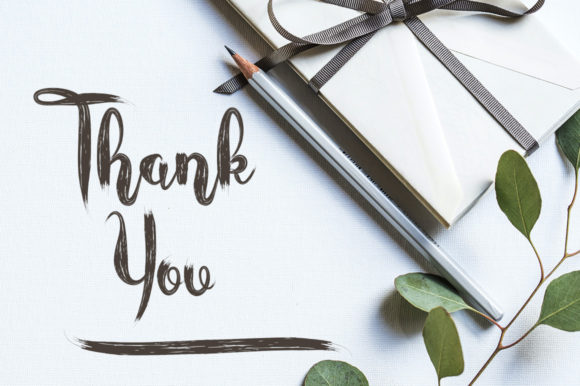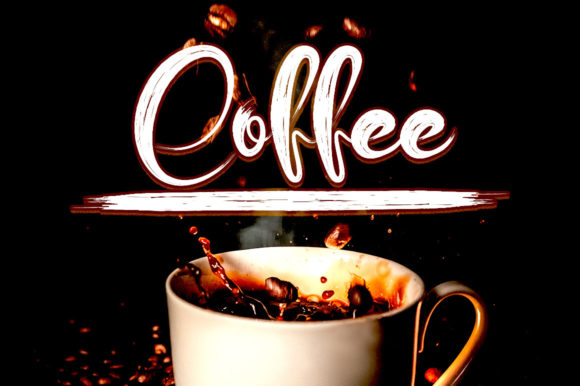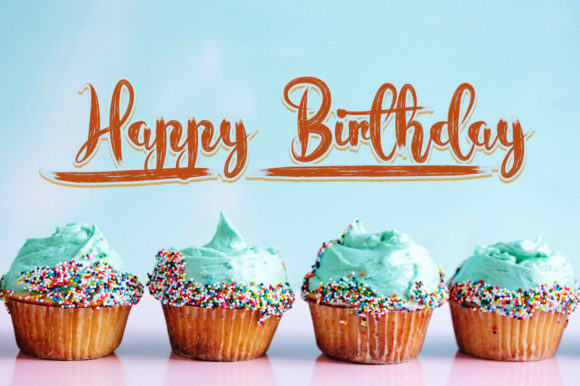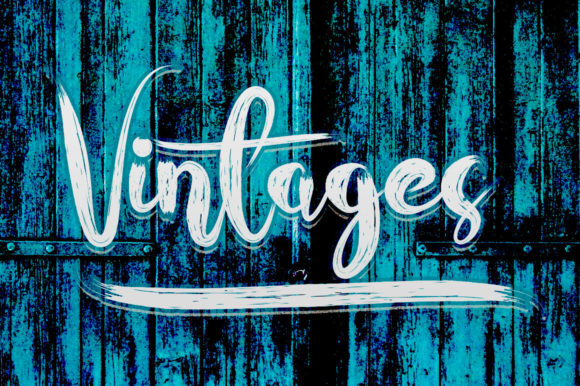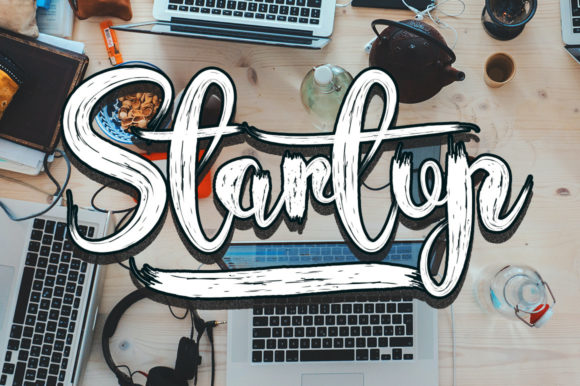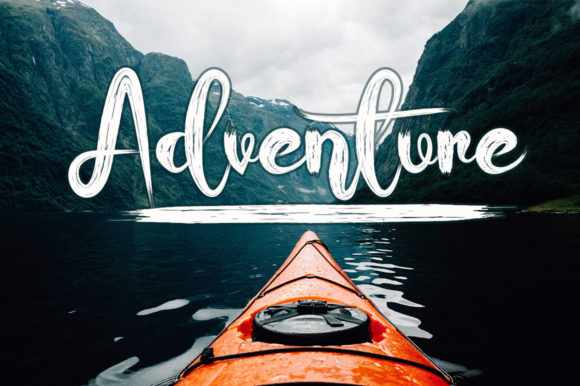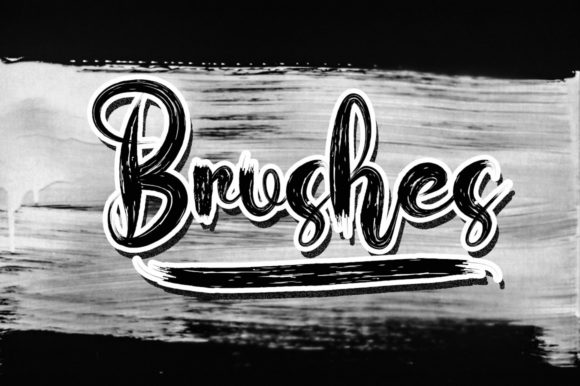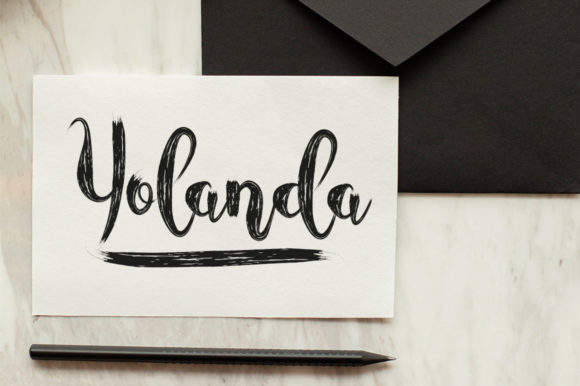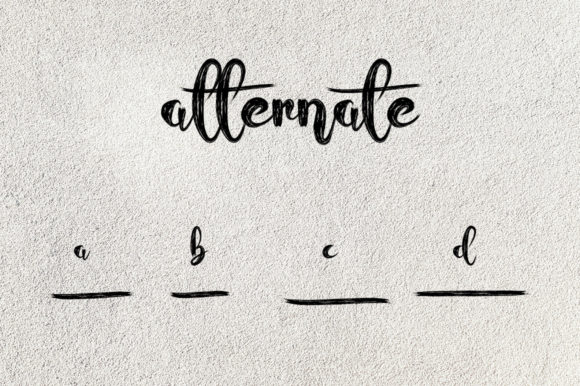
Island Font
About Island Font
Island is a lovely brushed handwritten font. It has a casual and trendy touch, which will make each of your creations both adaptable and unique.